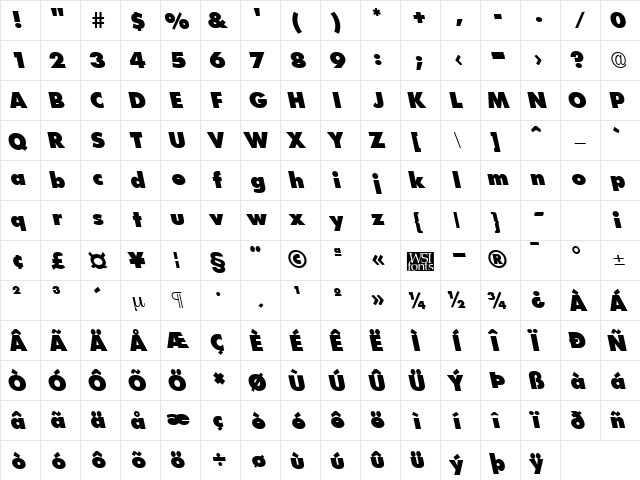
FuturistLeftyXHeavy Regular
Design Context for FuturistLeftyXHeavy Typeface
FuturistLeftyXHeavy channels digital-age aesthetics through its sharp, structured letterforms — ideal for brands that want to signal innovation.